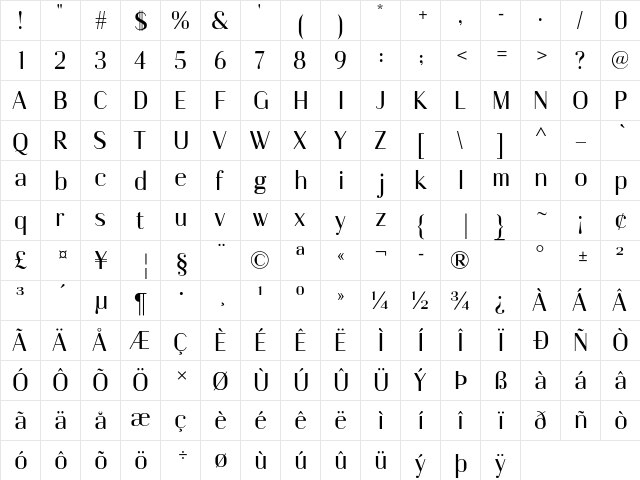
Kiyana Regular Regular
Design Context for Kiyana Regular Typeface
Kiyana Regular is a composed and adaptable typeface that performs quietly and consistently across a wide range of design contexts.